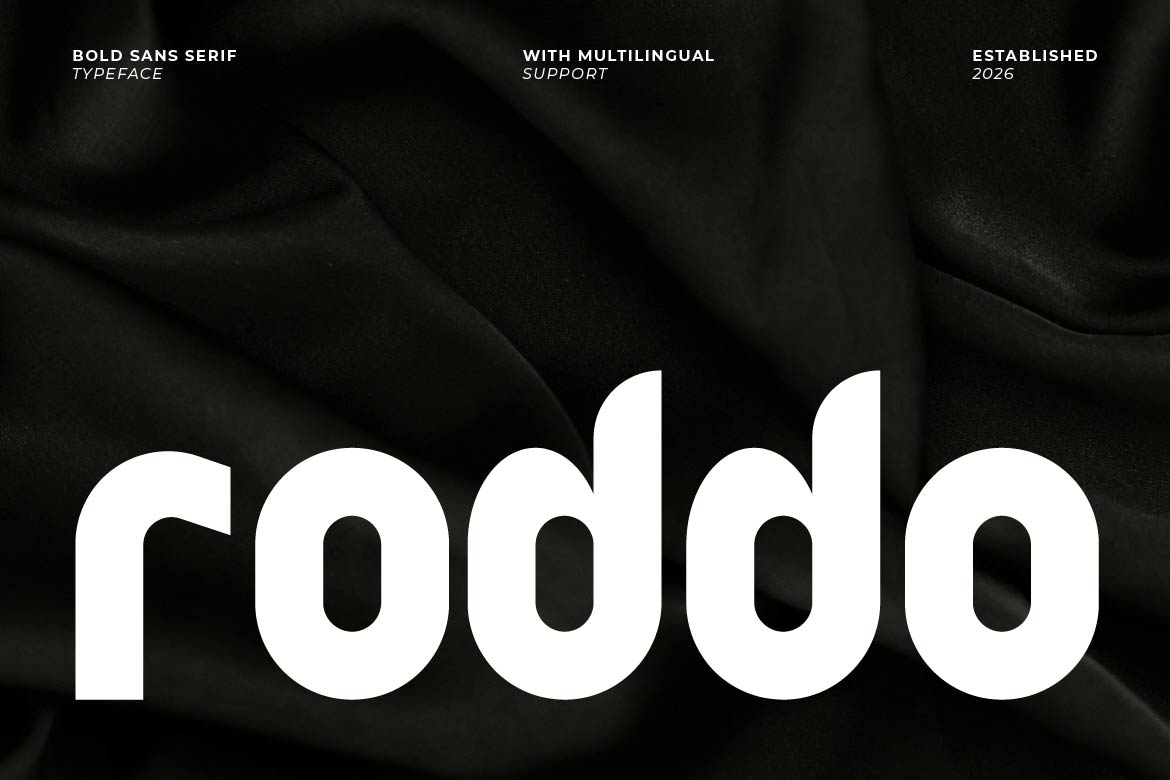
- Roddo – Soft Bold Typeface for Playful & Modern Design
Roddo is a rounded bold sans serif typeface that combines strength with a friendly and approachable personality. With smooth curves, thick strokes, and balanced proportions, Roddo delivers a soft yet confident look that stands out in modern design.
Perfect for branding, logos, packaging, children’s products, food brands, social media graphics, and playful visual identities, Roddo creates a warm and engaging tone without losing readability. Its bold structure ensures strong visibility, while the rounded edges add charm and friendliness.
Roddo is ideal for designers who want bold impact with a soft, human touch.
Roddo is not just a font — it’s bold, friendly, and full of character.